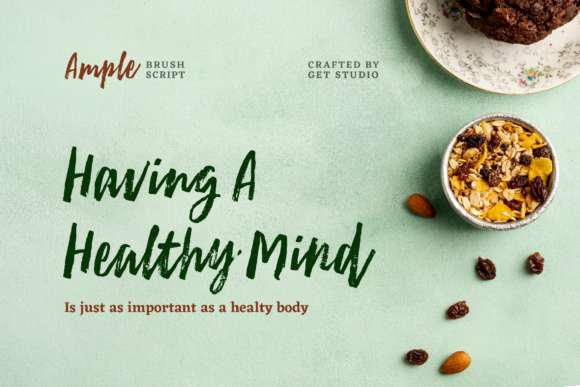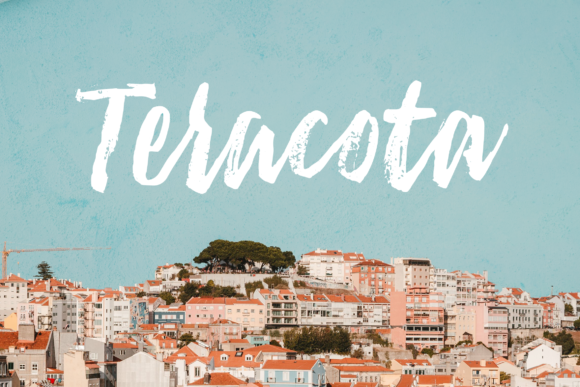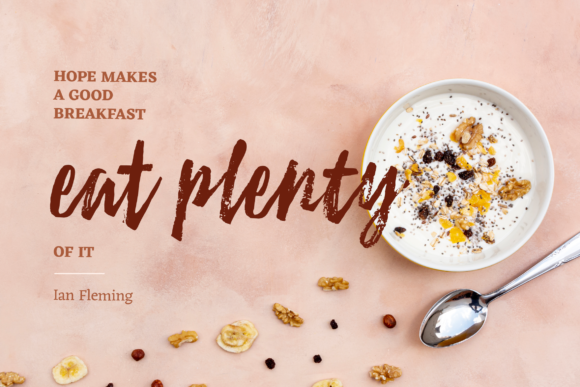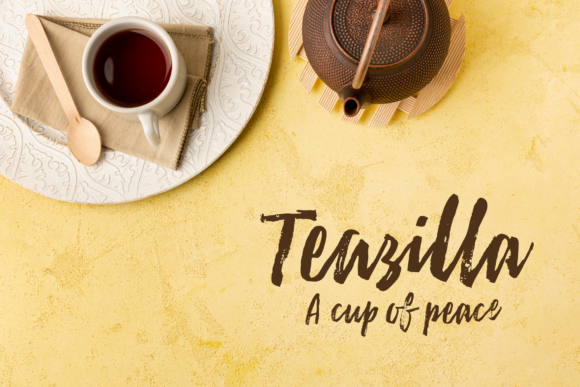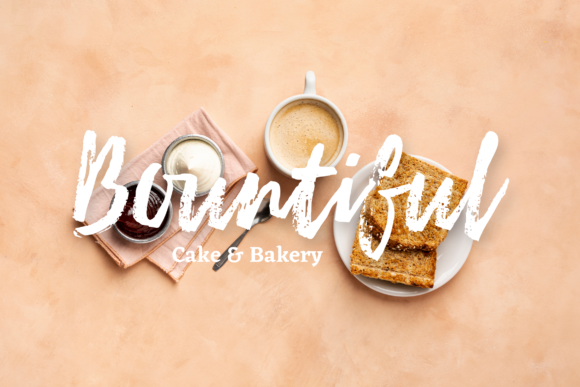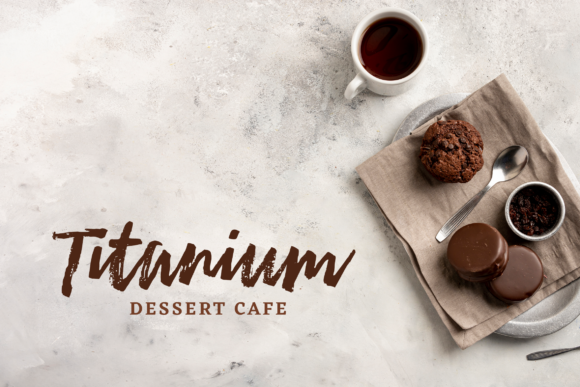
Unleash Your Creativity with Ample Font: The Perfect Blend of Strength and Elegance
Are you tired of using the same old fonts in your designs? Look no further than Ample Font, a stunning script that combines strength, boldness, and elegance. With its unique appearance, Ample Font is sure to inspire you to turn any design idea into a masterpiece. In this article, we’ll dive into the world of Ample Font, exploring its features, benefits, and uses, and why it’s a must-have for designers and crafters.
The Perfect Balance of Strength and Elegance
Ample Font is a masterclass in balance and contrast. On one hand, it exudes strength and boldness, making it perfect for headlines, titles, and statements. On the other hand, it also possesses an undeniable elegance, making it suitable for more refined and sophisticated designs. This unique blend of characteristics makes Ample Font an incredibly versatile font, capable of adapting to a wide range of design styles and applications.
What Makes Ample Font So Special?
So, what sets Ample Font apart from other fonts? Here are a few key features that make it truly special:
• Unique Letterforms: Ample Font boasts distinctive letterforms that are both visually striking and highly legible. Each letter has been carefully crafted to create a sense of flow and continuity, making it perfect for longer blocks of text.
• Highly Versatile: Whether you’re designing a logo, brochure, or social media graphic, Ample Font adapts seamlessly to any design style or application.
• Elegant Swashes: Add a touch of sophistication to your designs with Ample Font’s elegant swashes, perfect for accentuating titles, headings, and key phrases.
How to Use Ample Font in Your Designs
Now that we’ve explored the features and benefits of Ample Font, let’s dive into some practical applications and design ideas:
Logos and Branding
Ample Font is an excellent choice for logos and branding, thanks to its bold and memorable appearance. Use it to create a strong and lasting impression on your audience, and establish a cohesive visual identity for your brand.
Headings and Titles
Make a statement with Ample Font’s elegant swashes and bold letterforms. Perfect for headings, titles, and section breaks, Ample Font adds a touch of sophistication and refinement to any design.
Social Media Graphics
Take your social media graphics to the next level with Ample Font. Use it to create eye-catching posts, ads, and promotions that grab attention and drive engagement.
Tips and Tricks for Getting the Most Out of Ample Font
Here are some expert tips and tricks for unlocking the full potential of Ample Font:
• Experiment with Swashes: Don’t be afraid to try out different swash combinations to add a unique touch to your designs.
• Mix and Match: Combine Ample Font with other fonts to create a striking contrast and add visual interest to your designs.
• Pay Attention to Spacing: Make sure to adjust the spacing and kerning to ensure optimal legibility and flow.
In conclusion, Ample Font is a game-changer for designers and crafters looking to elevate their designs and create something truly special. With its unique blend of strength, boldness, and elegance, Ample Font is the perfect choice for a wide range of design applications. So why wait? Get inspired by Ample Font’s unique appearance, and turn your design ideas into masterpieces today!